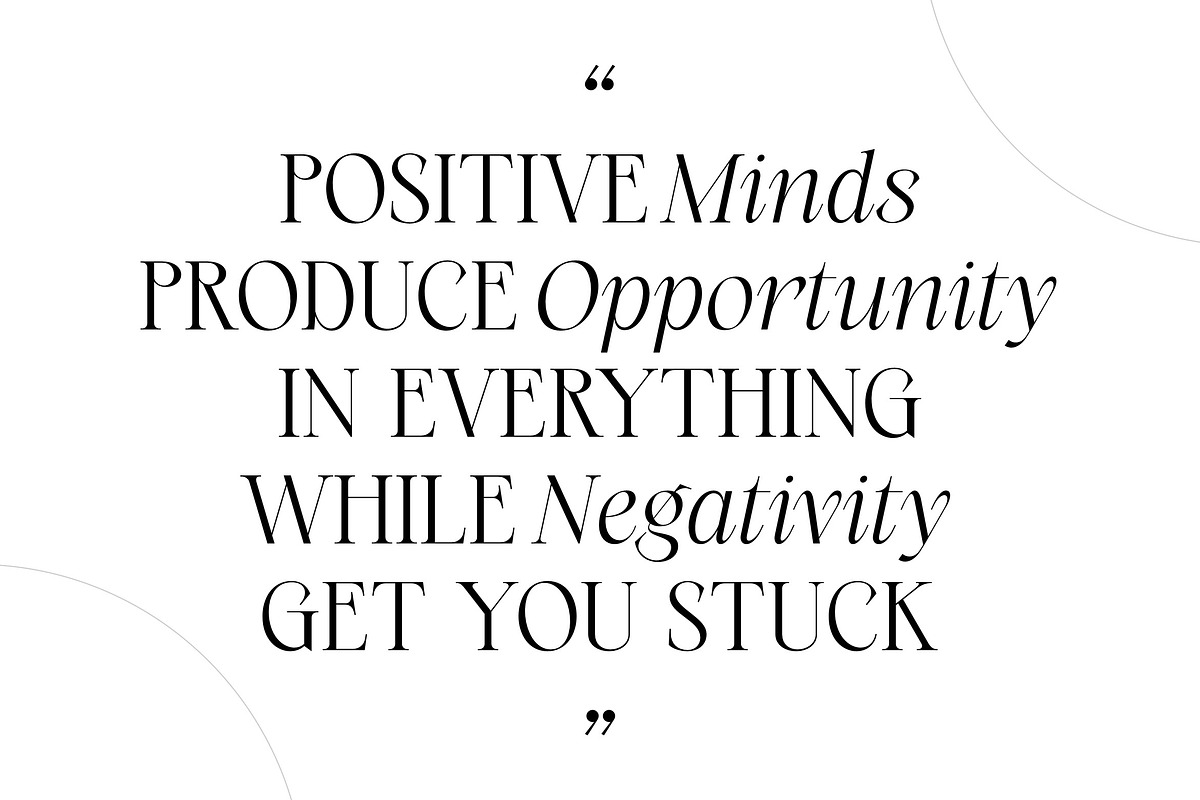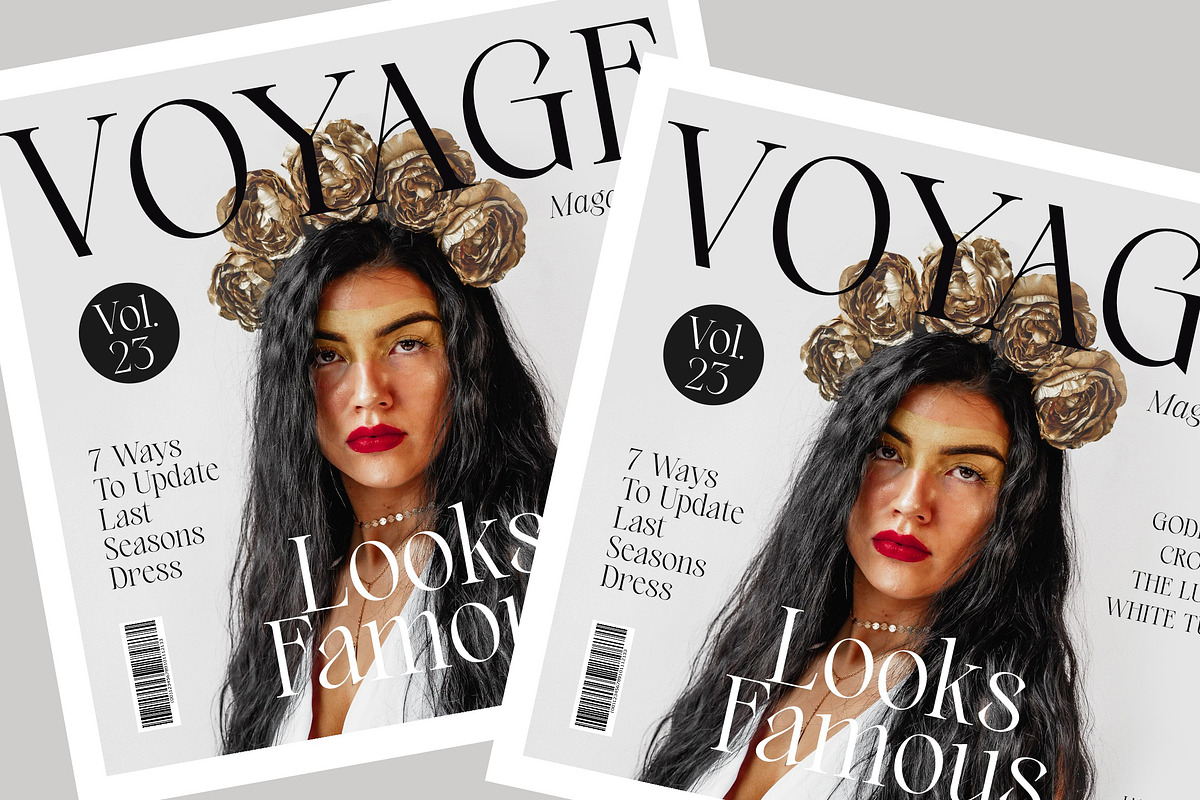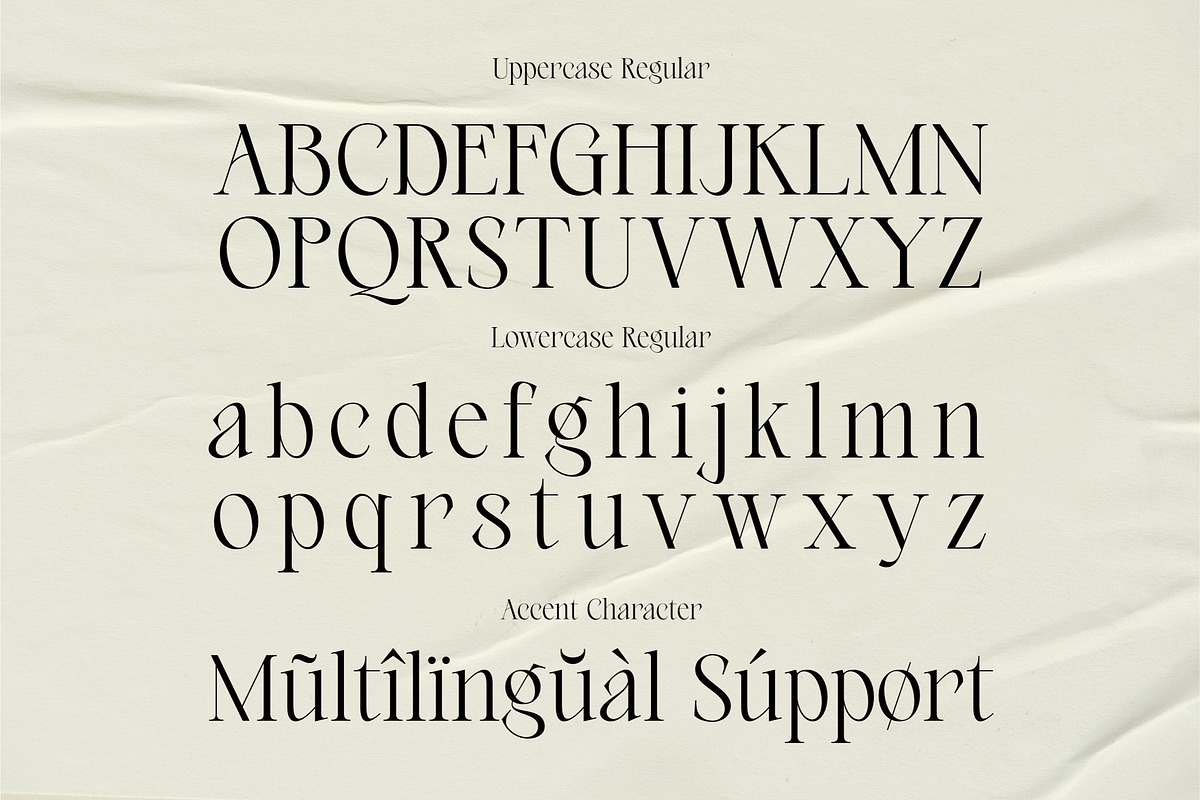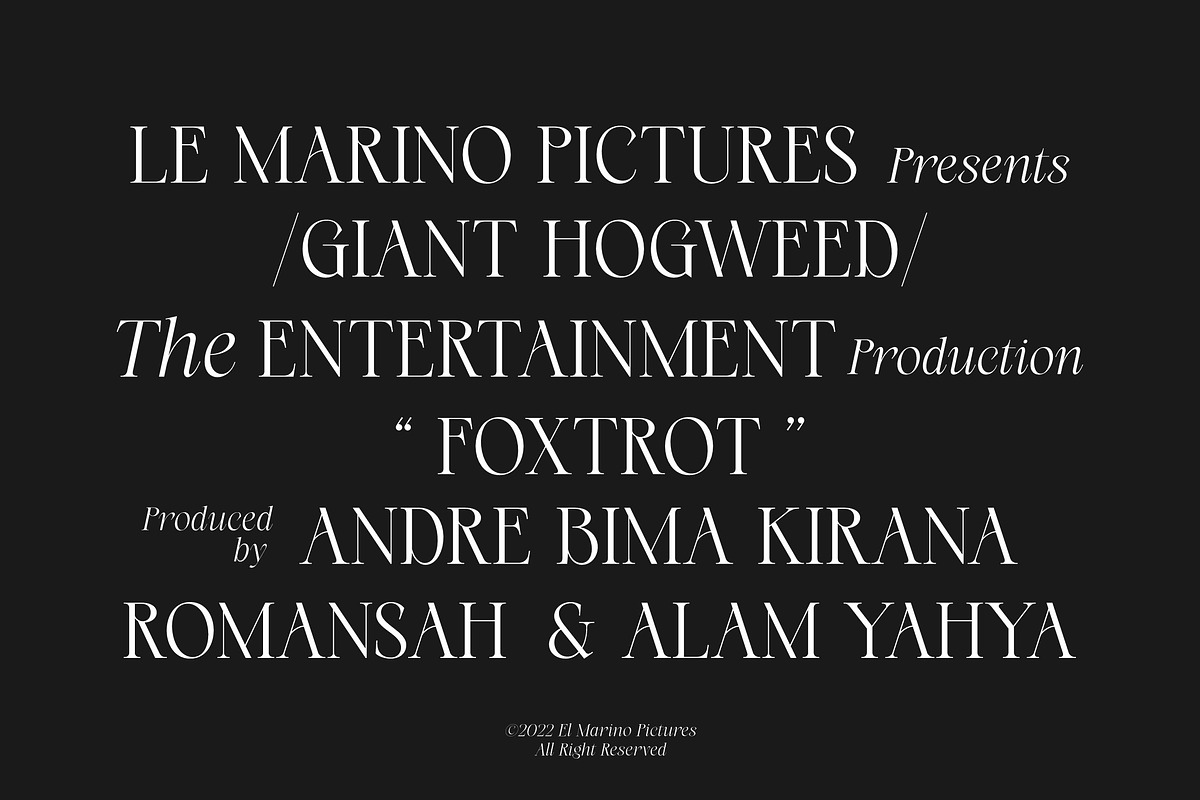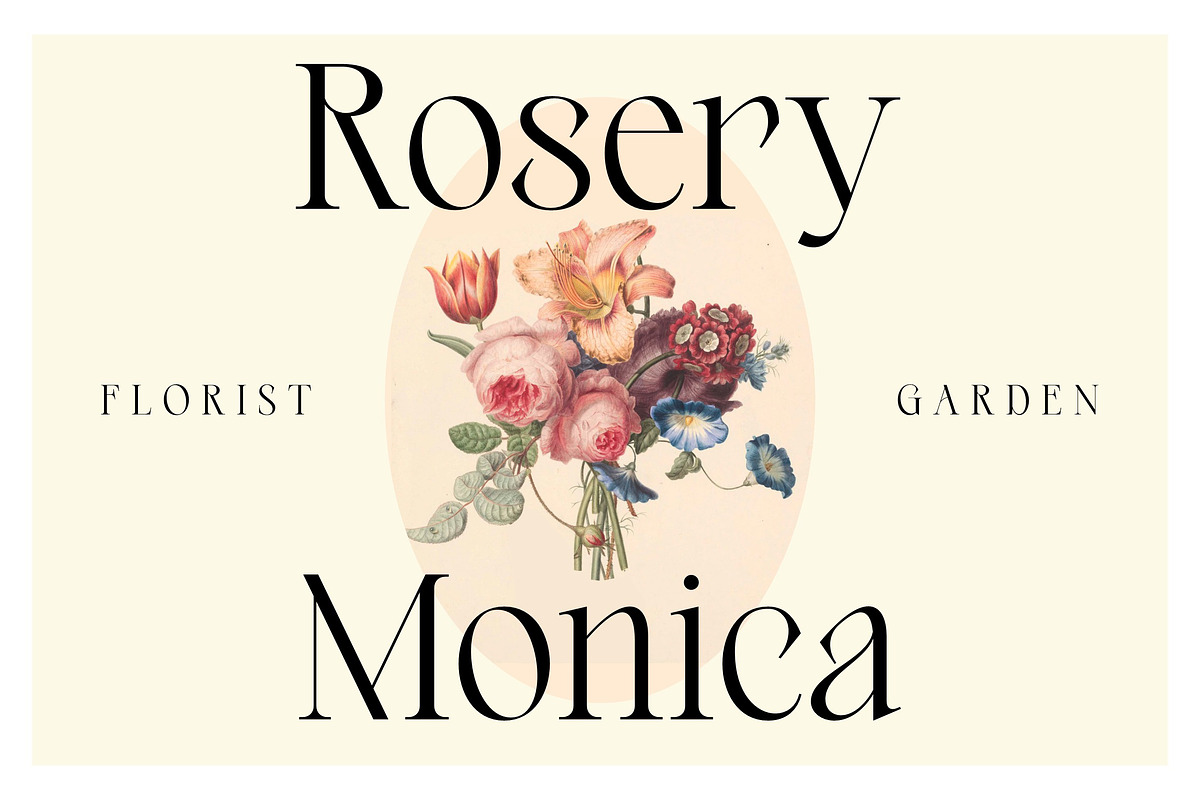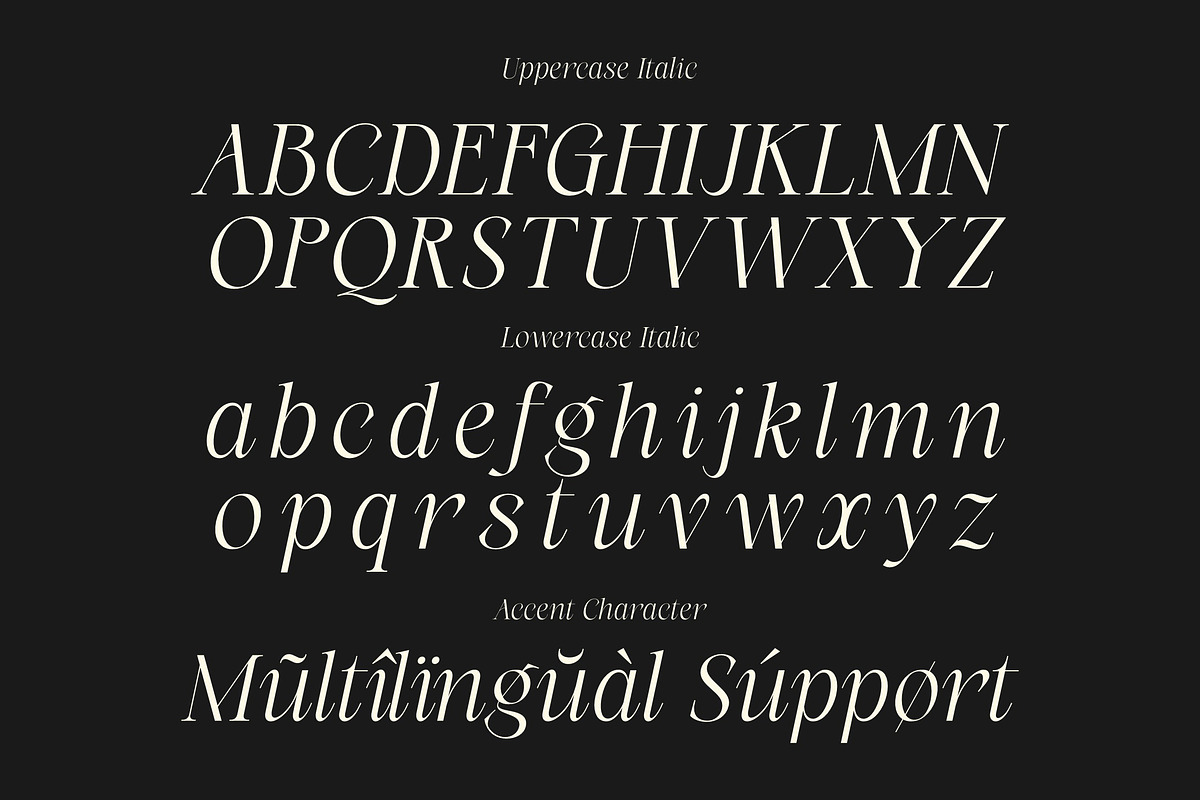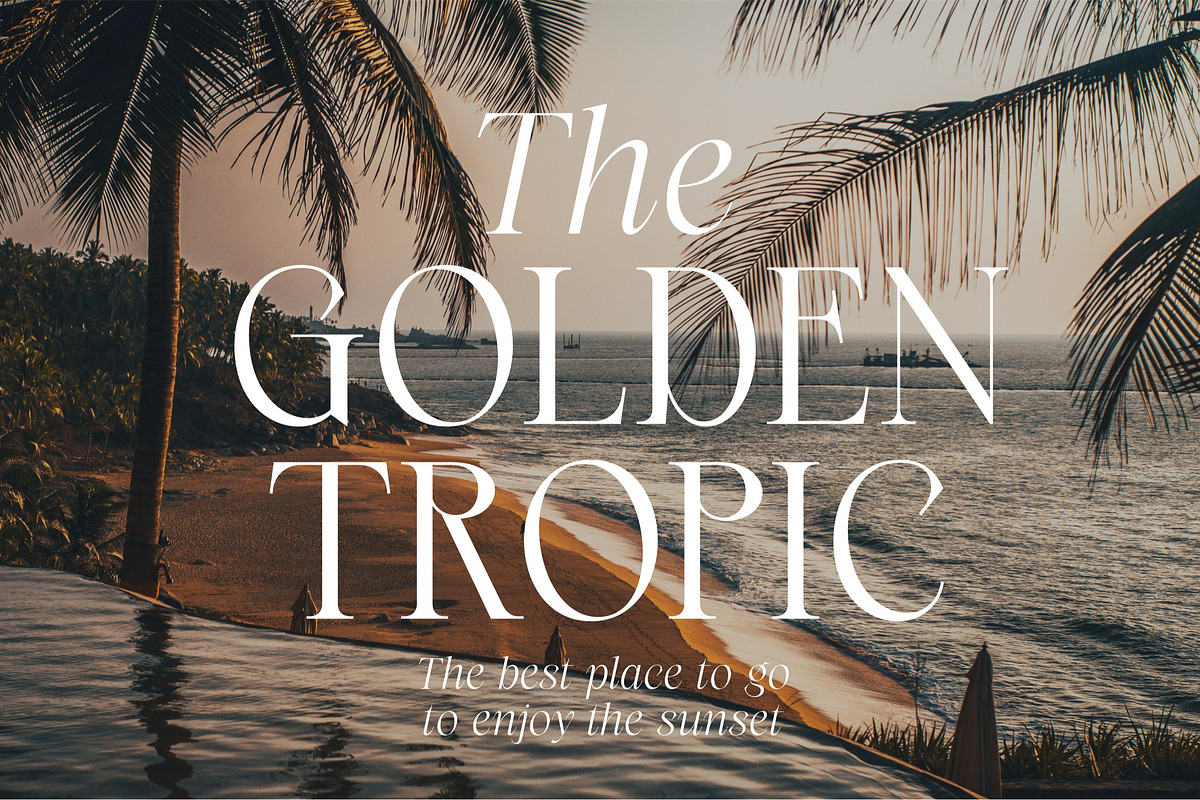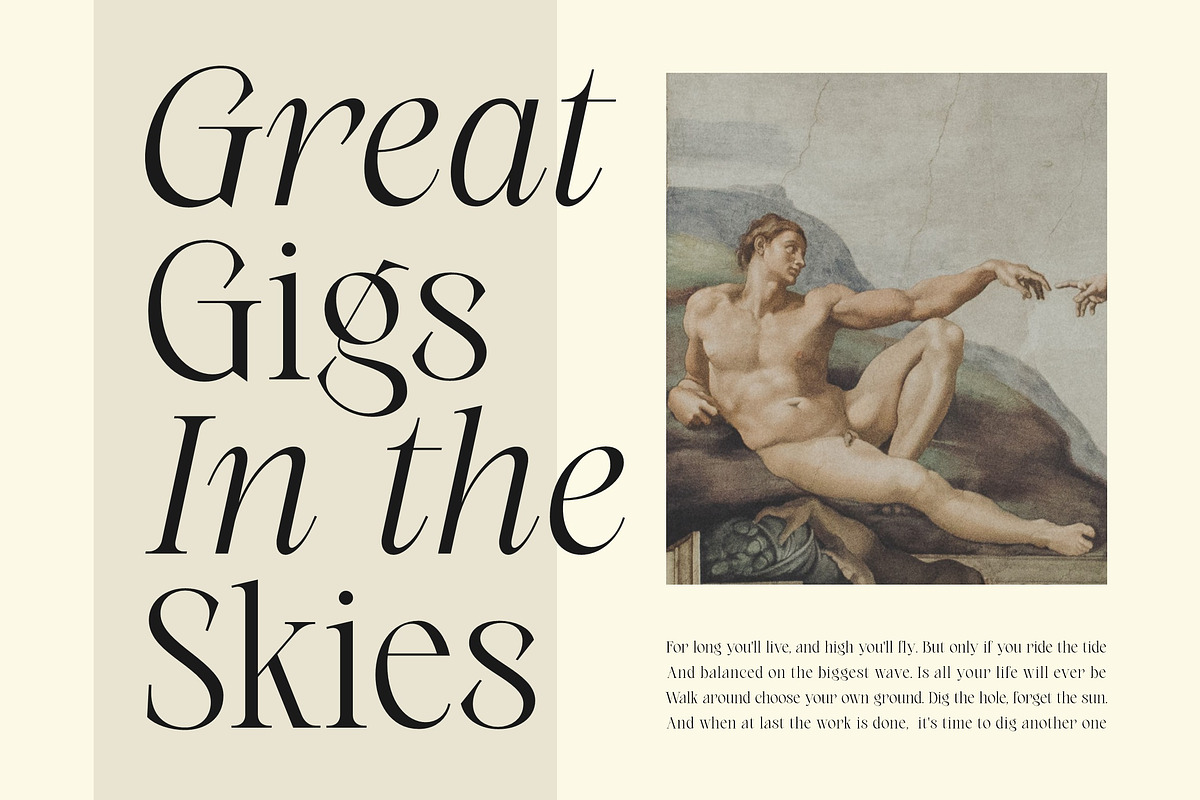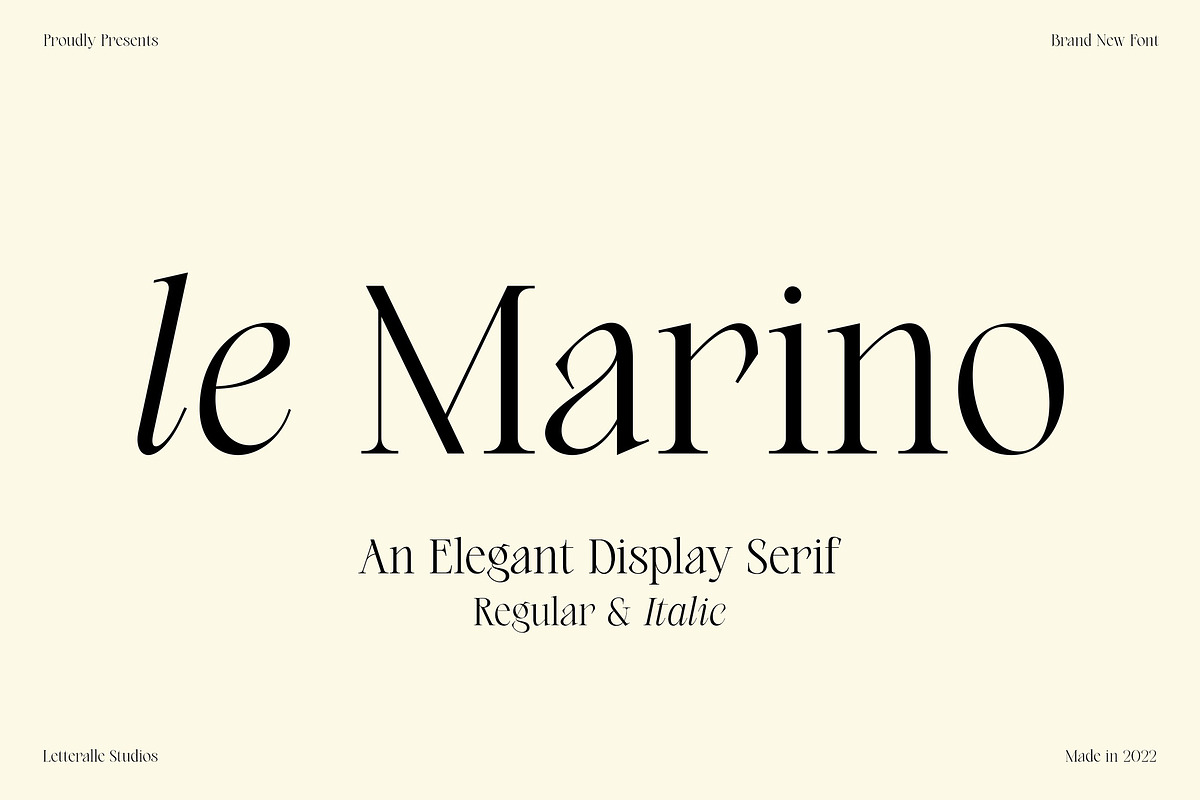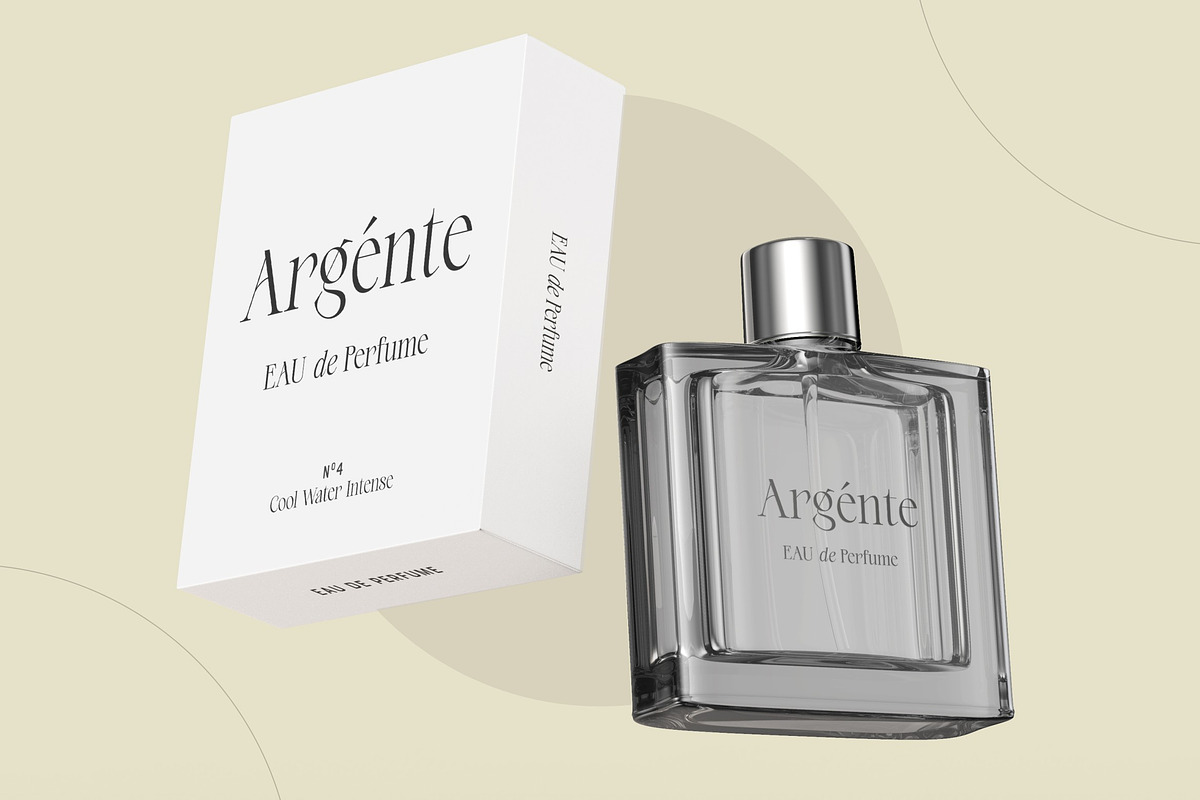
Le Marino Elegant Display Serif
Introducing,le Marino! a stylish font that is luxury and modern. the combination of regular and italic version adds to the appeal and usability.
le Marnino is a versatile font, perfect for editorial projects, Logo design, Wedding, Clothing Branding, product packaging, magazine headers, or simply as a stylish text overlay to any background image.
- Italic & Regular Version
- Full Uppercase & Lowercase Character.
- Numeral, Punctuation, Multilingual Accents.